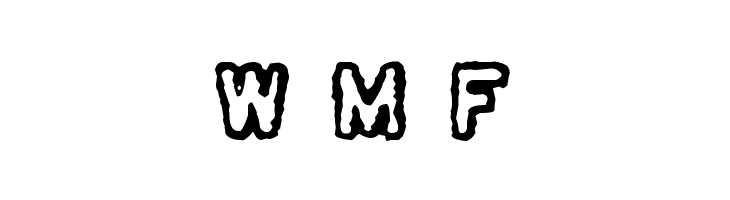
A playful, bold font with a hand-drawn outline effect.
A cartoonish, festive display font made of illustrated characters.
Cartoon gangster-themed pictorial display font.
A modern, geometric font with rounded edges and bold characters.
A decorative and intricate font with geometric embellishments and a futuristic style.
A bold, circular geometric font with high contrast and modern style.
A modern, sleek font with elongated, narrow characters and consistent stroke width.
A modern, geometric font with elongated, narrow letterforms and a sleek design.
A modern, clean sans-serif font with a slightly condensed style.
A bold, playful font with a graffiti-inspired style.
A bold, sans-serif typeface with a strong and impactful presence.
A bold, modern sans-serif font with excellent readability and balanced proportions.
A clean, modern, and light typeface with a minimalist design.
A playful, handwritten font with rounded edges and a casual style.
A playful, handwritten font with a whimsical and friendly style.
A playful, handwritten font with smooth, flowing lines and a casual style.
A playful, casual handwritten font with rounded, consistent strokes.
A bold, modern font with a slightly condensed and clean design.
A friendly, handwritten font with rounded edges and a casual style.
A bold, decorative font with a layered, neon sign-inspired design.
A pixelated, retro-style font with a digital, grid-like appearance.
A whimsical and elegant calligraphic font with decorative flourishes.
A decorative, geometric font with abstract and artistic elements.
A bold, distressed font with a grungy, textured appearance.
A bold, geometric font with strong, angular lines and a modern aesthetic.
A modern, geometric font with elongated, angular characters and a futuristic style.